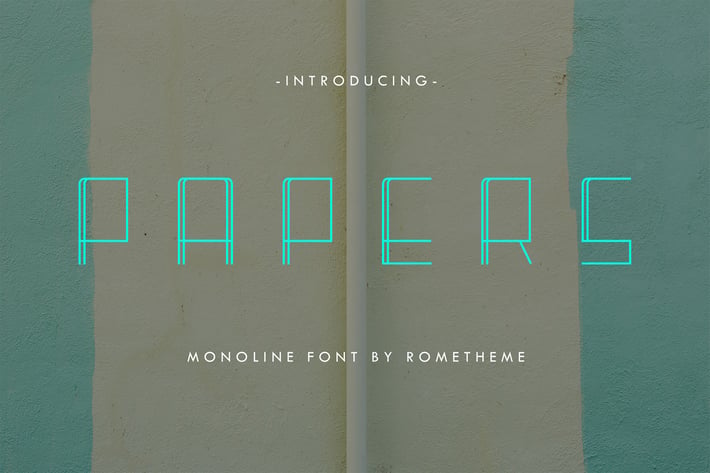
Papers - Monoline Display Font
Papers is Monoline display font. It has a elegant, classy look and cool. Itβs a great font for fashion,
apparel projects, signature, album cover, logo, branding, magazine, social media, & advertisements,
but also works great for other projects.
- The perfect font choice for powerful projects - watermarks, signatures, photography, logos, business cards, quotes,
album covers.